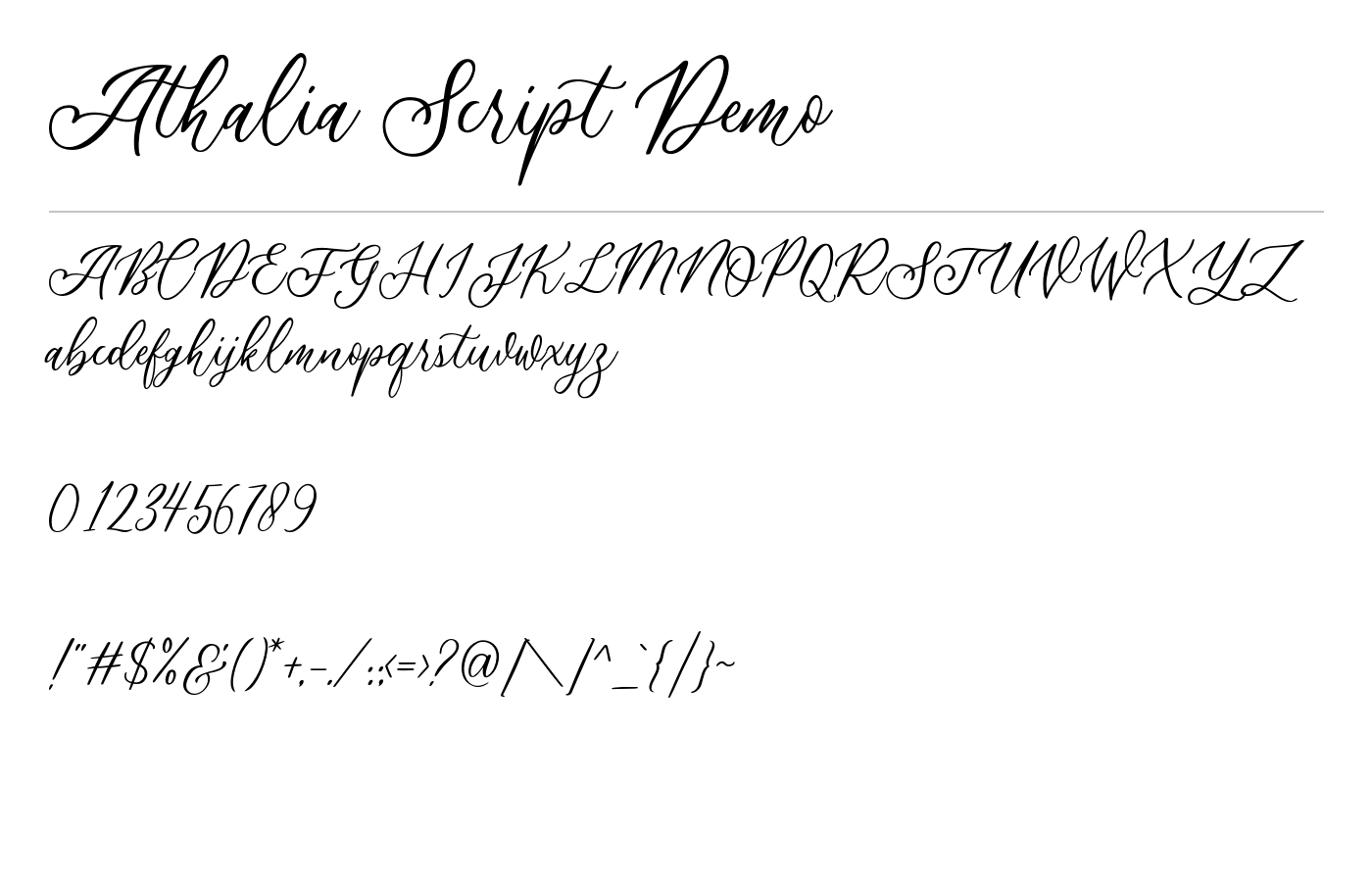
Athalia Script Demo is an elegant, delicate script font characterized by its fluid, calligraphic strokes and fine hairline weights. Its graceful letterforms and high contrast lines evoke a romantic, sophisticated feel, making it perfect for wedding invitations, luxury branding, and feminine editorial designs. This font shines in display use where its artistic flair can add a refined and personal touch.
Athalia Script Demo Font
About Athalia Script Demo Font
| Font family | Athalia Script Demo Font |